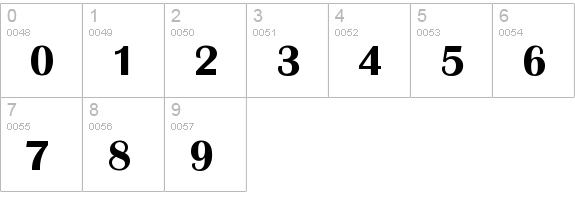
Grenoble SF Bold is a strong, high-contrast variant in the Grenoble typeface family \xE2\x80\x94 well suited to headlines, attention-grabbing titles, and strong calls-to-action.
Grenoble SF Bold font is a stunning and versatile typeface that exudes a bold and modern aesthetic. Its strong and commanding presence makes it perfect for headlines, titles, and branding materials. With its clean lines and sharp edges, Grenoble SF Bold font demands attention and leaves a lasting impression. What sets Grenoble SF Bold font apart is that it is available for free download at FontsMarket.com. This means that designers and creatives can easily access this high-quality font without any cost, making it a valuable asset for projects of all kinds. Whether you're working on a website, poster, logo, or any other design project, Grenoble SF Bold font is sure to elevate your work and make a statement. Download this impressive font today and unleash its power in your designs.